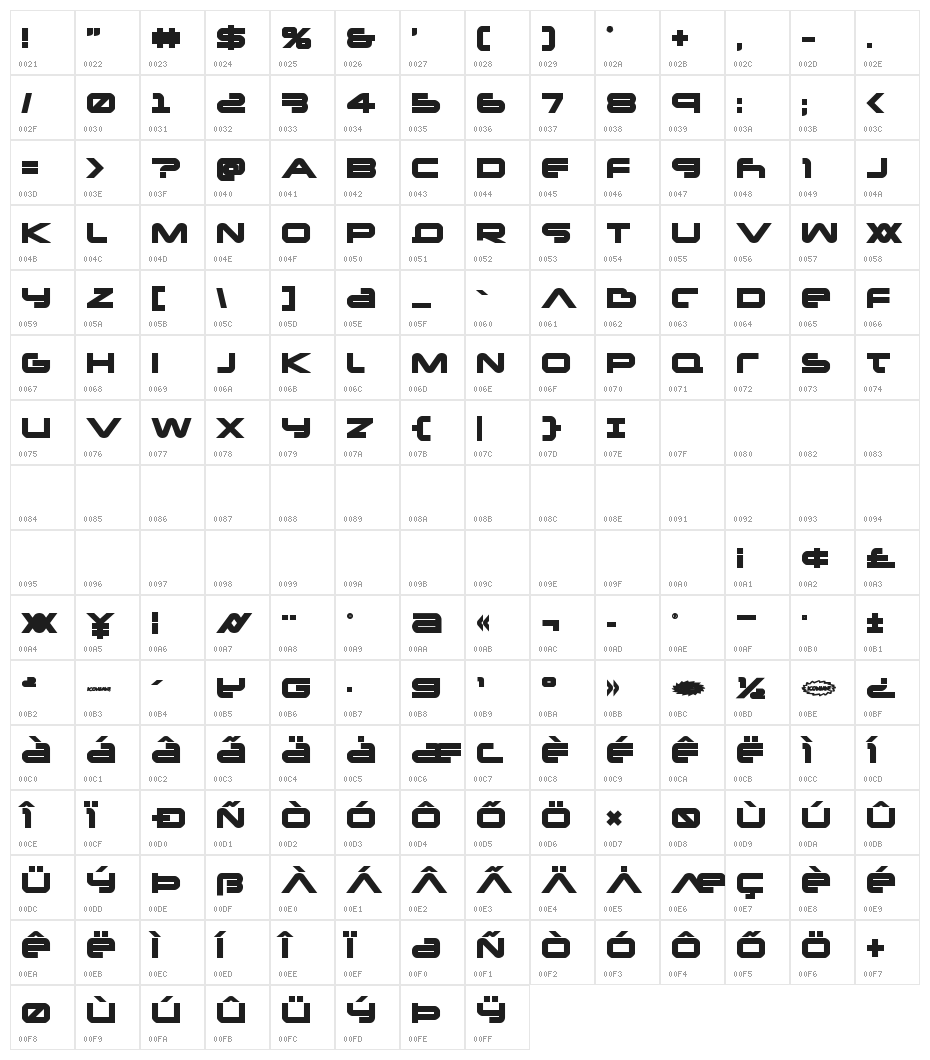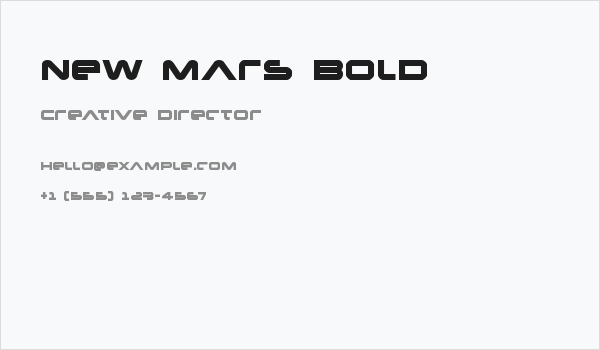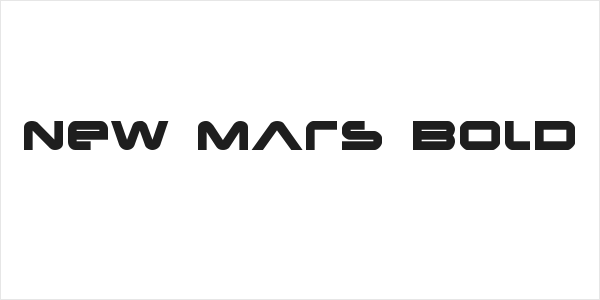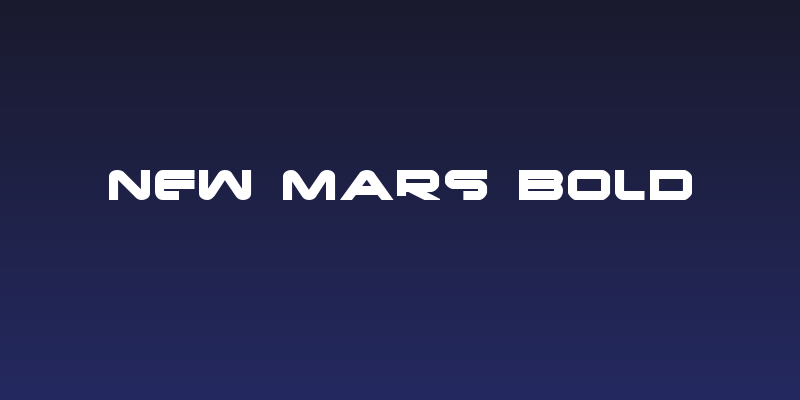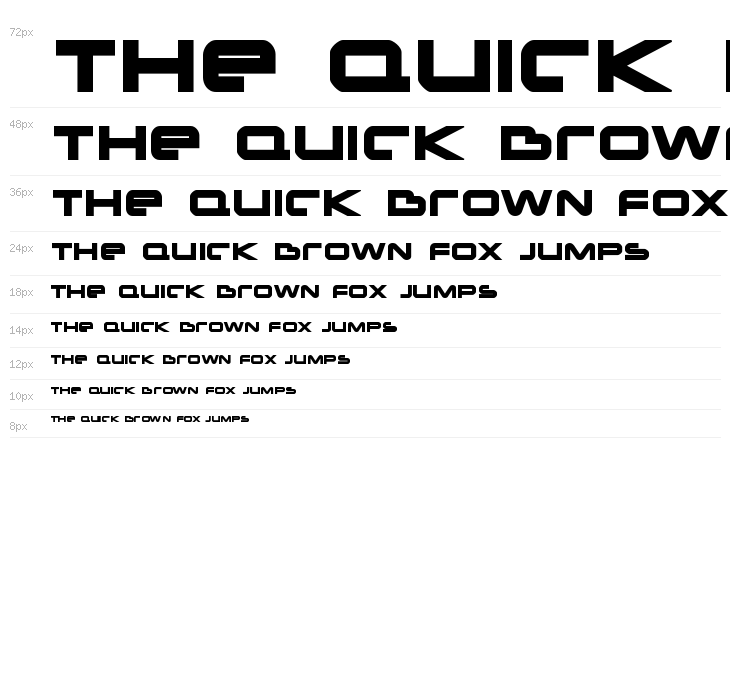
New Mars Bold Font
New Mars Bold Description
This font features a bold, futuristic design with geometric shapes and sharp angles. The characters are wide and have a strong presence, making them ideal for attention-grabbing headlines. The uppercase letters are particularly striking, with a uniform height and consistent stroke thickness. The lowercase letters maintain the same bold style, ensuring readability while retaining the font's unique character. Numbers and special characters are designed with the same bold, angular style, providing a cohesive look across all elements.
| Proposed Projects | Ideal for sci-fi themed projects, technology branding, video game titles, and futuristic posters. |